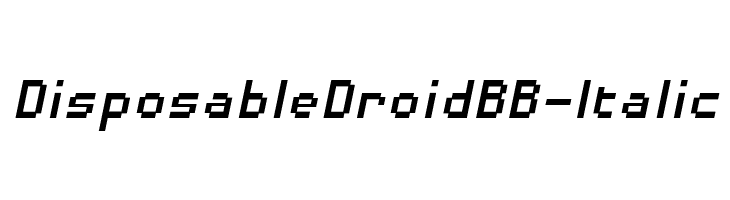
A pixelated, blocky font with a retro digital style.
A bold, pixelated font with a retro digital aesthetic.
A pixelated, italic font with a retro digital style.
A bold, italicized pixelated font with a retro digital aesthetic.